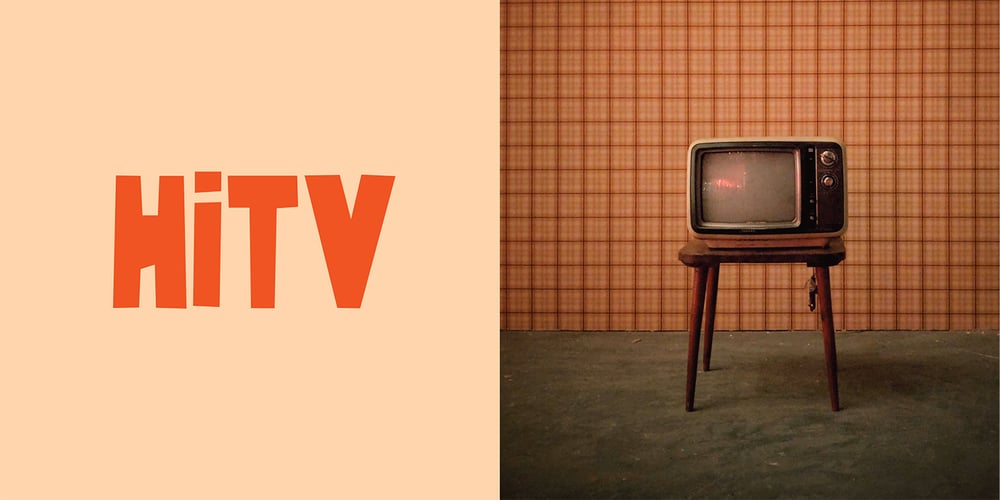
Hi TV Font Family was designed by Untung Prasetyo and published by Yebhu. Hi TV contains 1 styles and family package options. Hi TV is an good-humored and energetic display font. Although being an all caps alphabet, it counts two versions for a letter, easily accessed choose uppercase or lowercase. These slightly different letterforms will bring spontaneity and vitality to your designs. Crunching noises guaranteed!